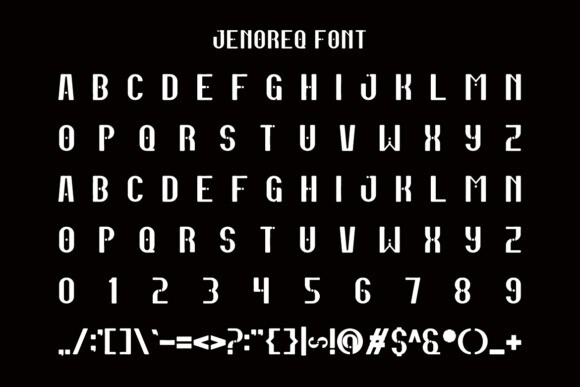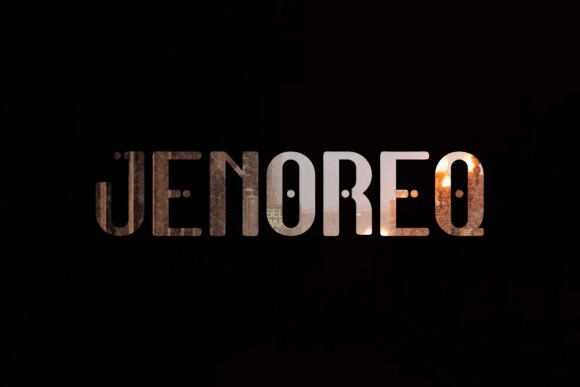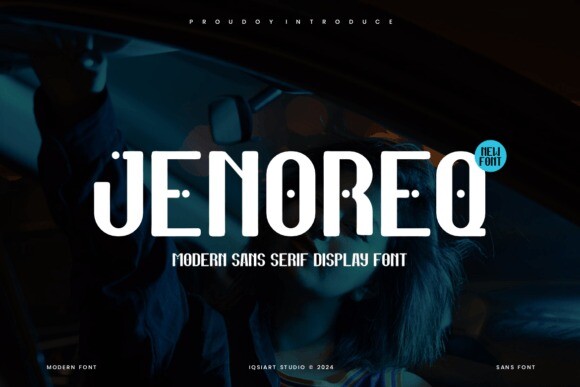
Jenoreq Font
Designer: IqsiartStudio
Jenoreq Font is an incredibly cool and unique sans serif font. It has a modern yet whimsical style and it will undoubtedly immerse your designs into a magical world.